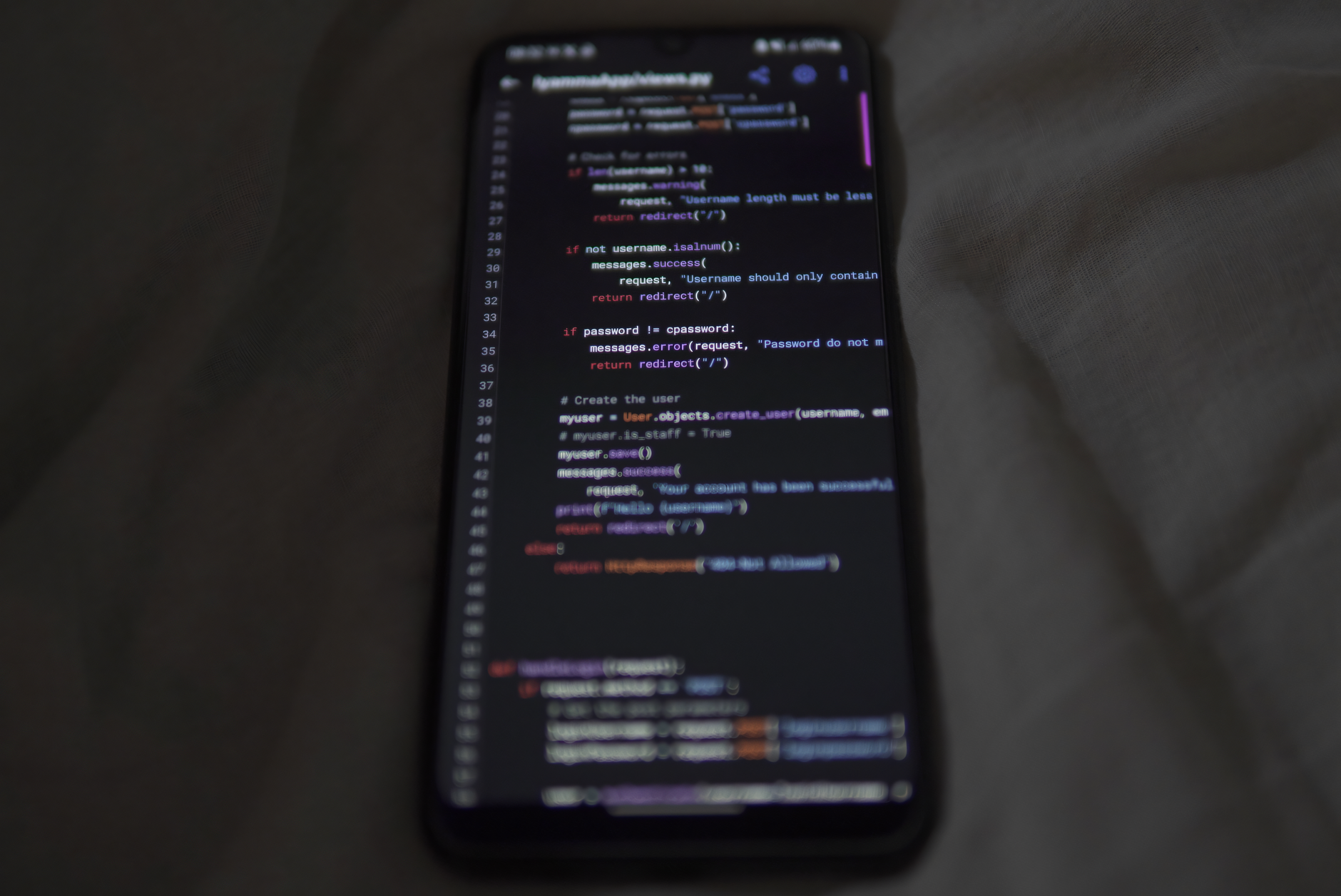
If you’ve ever toggled your website or application to dark mode, you might have noticed a strange visual shift: the clean, crisp typography that looked perfect in light mode suddenly looks bloated, heavy, and slightly blurry.
You aren't imagining things. Fonts actually do look thicker when inverted. This phenomenon isn't a browser bug or a rendering error; it's a combination of human biology and physics.
In this article, we’ll explore the science behind why this happens and look at the practical, modern CSS techniques you can use to tame your dark mode typography.
The primary culprit behind this typographic weight gain is a visual phenomenon known as irradiation (or the halation effect).
Light Mode: Dark text on a light background (Light is absorbed/blocked)
Dark Mode: Light text on a dark background (Light bleeds outward)
In light mode, the bright background floods your eye, pinching the dark shapes of the text and making them appear slightly thinner.
In dark mode, the reverse happens. The bright letters emit light against a dark void. Because of how our eyes focus light, this brightness bleeds outward into the surrounding darkness. To the human eye, the stroke width of the text appears to expand, making a regular font weight (like 400) look closer to a medium weight (500).
To maintain visual consistency between light and dark modes, we must manually compensate for this optical illusion. Here are the four best ways to do it.
Variable fonts are a game-changer for responsive typography. Instead of choosing between rigid weights like 400 (Regular) and 700 (Bold), variable fonts allow you to adjust the weight to any decimal value in between.
In dark mode, you can shave off about 30 to 50 units of weight to counteract the halation effect:
/* Light Mode (Default) */
body {
font-family: 'Inter Variable', sans-serif;
font-weight: 400;
background-color: #ffffff;
color: #1a1a1a;
}
/* Dark Mode */
@media (prefers-color-scheme: dark) {
body {
font-weight: 360; /* Slightly thinner to look identical to light mode */
background-color: #121212;
color: #f5f5f5;
}
By default, modern browsers use subpixel antialiasing to make text look sharp. While this works beautifully for dark text on light backgrounds, it can cause a bright, colored "halo" around light text on dark backgrounds, exacerbating the fattening effect.
You can switch to grayscale antialiasing in your dark mode styles to instantly make text look sharper and thinner:
@media (prefers-color-scheme: dark) {
body {
-webkit-font-smoothing: antialiased;
-moz-osx-font-smoothing: grayscale;
}
Note: Use this property sparingly and only when necessary, as disabling subpixel rendering can sometimes make very thin fonts look too faint on low-resolution screens.
The stronger the contrast between the text and the background, the more pronounced the halation effect will be. Pure white text (#ffffff) on a pure black background (#000000) creates the maximum amount of glow.
By softening the colors, you can reduce eye strain and naturally thin out the appearance of the text:
/* Avoid #fff on #000. Try this instead: */
@media (prefers-color-scheme: dark) {
body {
background-color: #121212; /* Dark gray instead of pure black */
color: #e0e0e0; /* Soft off-white instead of pure white */
}
Because light text bleeds outward, the spaces between letters (the counters and tracking) appear smaller in dark mode. This can cause letters to run together, drastically reducing readability.
To remedy this, add a tiny touch of letter-spacing to your dark mode styles:
@media (prefers-color-scheme: dark) {
body {
letter-spacing: 0.01em;
}
h1, h2, h3 {
letter-spacing: 0.02em;
}
When designing or developing a dark mode theme, keep this checklist in mind:
400 to 360).0.01em to 0.02em) to let the letters breathe.-webkit-font-smoothing: antialiased if the text still looks bloated on macOS/iOS.By implementing these subtle tweaks, you will ensure your website's typography remains beautiful, highly legible, and visually balanced—no matter which side of the light spectrum your users prefer.